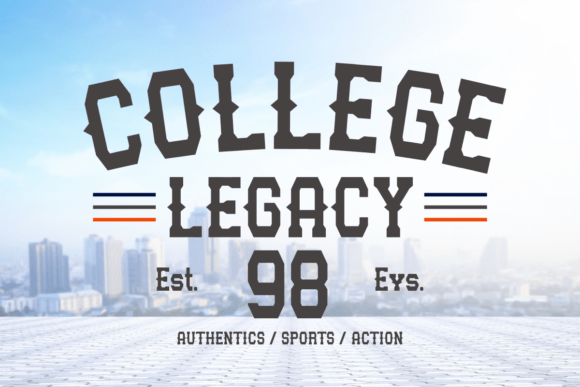
College Legacy Font Review for Holiday Campaigns
I was staring at a blank canvas in Figma last Tuesday, tasked with designing the hero banner for a client’s upcoming winter sale. The brief called for something that felt nostalgic yet urgent, academic but accessible, and distinctly seasonal without relying on tired snowflake clip art. This is exactly the kind of creative friction where typography makes or breaks the campaign. After testing several options, I pulled College Legacy into the layout, and the mood shifted instantly. As a modern, bold varsity font inspired by college and legacy writing, this typeface brought an immediate sense of established authority and cozy tradition to the digital ad set. For marketers and designers navigating the crowded holiday season, finding Fonts that balance readability with distinct personality is a constant challenge, but this specific Slab Serif proved to be a reliable workhorse for high-impact visual storytelling.
College Legacy for Winter and Holiday Branding Projects
When integrating College Legacy into winter and holiday branding projects, the first thing you notice is how the slab serif structure anchors festive chaos. In my test campaign for a seasonal apparel launch, I needed a headline that could sit comfortably over a busy photograph of knitwear and outdoor scenery without getting lost. The bold, blocky letterforms of this font provided the necessary contrast against textured backgrounds, ensuring the "Winter Collection" announcement remained legible even on smaller mobile screens. Unlike delicate scripts that often fail in digital ads due to thin strokes, College Legacy maintains its integrity at various sizes. It evokes the feeling of vintage university merchandise and heritage craftsmanship, which aligns perfectly with current consumer trends favoring authenticity and nostalgia during the holidays. When using this typeface for seasonal promotions, I found it works best when treated as a graphic element itself; the letters are substantial enough to carry color gradients or subtle textures that mirror your product packaging labels, creating a cohesive brand experience from the Instagram ad to the unboxing moment.
Using College Legacy for Product Packaging Labels and Tags
Beyond digital screens, College Legacy translates exceptionally well to physical touchpoints like product packaging labels and gift tags. During a mockup phase for a limited-edition candle line, I used this font for the primary label text. The varsity inspiration gives the packaging a premium, collectible quality that standard sans serifs simply cannot achieve. Because it is a Slab Serif, the ink spread on textured paper stocks is predictable and forgiving, making it a safe choice for print production where fine details might otherwise bleed. From a marketing perspective, this legibility on packaging serves as a silent salesperson on retail shelves. The bold weight commands attention in peripheral vision, while the collegiate aesthetic suggests quality and tradition. However, a practical word of advice for fellow designers: reserve College Legacy for the product name or short descriptor on labels. Its strong personality can overwhelm dense ingredient lists or regulatory text. Pair it with a clean, neutral sans serif for the fine print to maintain that crucial balance between brand flair and functional clarity.
College Legacy in Social Media Graphics and Digital Ads
Social media feeds move fast, and College Legacy is engineered to stop the scroll without screaming. When designing a carousel post for an online course launch, I utilized this font for the slide headers. The bold varsity style creates natural visual breaks between slides, guiding the user through the content narrative with a confident rhythm. In digital advertising, specifically for Meta and Pinterest campaigns, click-through rates often hinge on how quickly a user can process the value proposition. College Legacy excels here because its wide stance and open counters remain crisp even when compressed in thumbnail previews. I tested it against a lighter script font for a "Back to School" winter workshop promo, and the slab serif version outperformed in terms of instant recognition. It signals "important information" rather than just "decorative text." For social media managers building templates, this font provides a versatile anchor. It pairs beautifully with modern photography and flat-lay product shots, bridging the gap between retro aesthetics and contemporary digital design standards. Just ensure you leave adequate negative space around the letterforms; this typeface needs room to breathe to maintain its bold impact without feeling cluttered in a square aspect ratio.
Font Pairing Strategies for College Legacy in Marketing Layouts
A common question I get when reviewing Fonts for campaign systems is what to pair them with, and College Legacy has specific preferences. Because it carries so much visual weight and historical association, it demands a supporting cast that offers relief. In my recent webinar banner designs, I paired College Legacy with a geometric sans serif for the date, time, and registration details. This combination creates a dynamic tension: the varsity font brings the emotion and hook, while the sans serif delivers the logistics with zero friction. Avoid pairing it with other decorative or display fonts, as the competition for attention will muddy your message. If you are working on craft ideas or greeting cards where a softer tone is needed, try combining it with a simple, elegant handwritten font for secondary accents. This softens the athletic edge of the varsity style, making it more approachable for personal stationery or boutique branding. Always check the licensing before finalizing these pairings for commercial use; ensuring you have the right coverage for digital ads, merchandise, and client work protects your campaign from future legal headaches. Also, verify if the font file includes alternate characters or ligatures, as these small typographic nuances can elevate a standard headline into a custom logotype treatment without requiring additional illustration work.
Evaluating Readability and Limitations of College Legacy
While College Legacy is a powerhouse for headlines and branding, it is vital to understand where it does not belong in a marketing workflow. As a bold varsity Slab Serif, it is strictly a display typeface. Attempting to use it for body copy, long-form blog posts, or dense email newsletters will result in poor readability and user fatigue. The heavy strokes and distinctive serifs that make it shine at 72pt become visual noise at 12pt. In my experience setting up landing pages, I use this font exclusively for H1 and H2 headers to establish hierarchy, then switch immediately to a highly legible web-safe font for paragraphs. Additionally, consider the tone of your specific audience. While perfect for lifestyle brands, educational institutions, and seasonal retail, College Legacy may feel too informal or spirited for conservative corporate communications, financial services, or luxury sectors that require minimalist refinement. It communicates camaraderie, tradition, and boldness, not subtlety or corporate sterility. Before committing to this typeface for a full rebrand, test it across dark mode and light mode interfaces. Bold slab serifs can sometimes appear heavier on dark backgrounds due to light bloom, so you may need to adjust tracking or weight slightly for optimal digital performance. Ultimately, College Legacy is a strategic asset for marketers who want to inject warmth and authority into their visuals, provided it is deployed with intention and restraint within the broader typographic system.